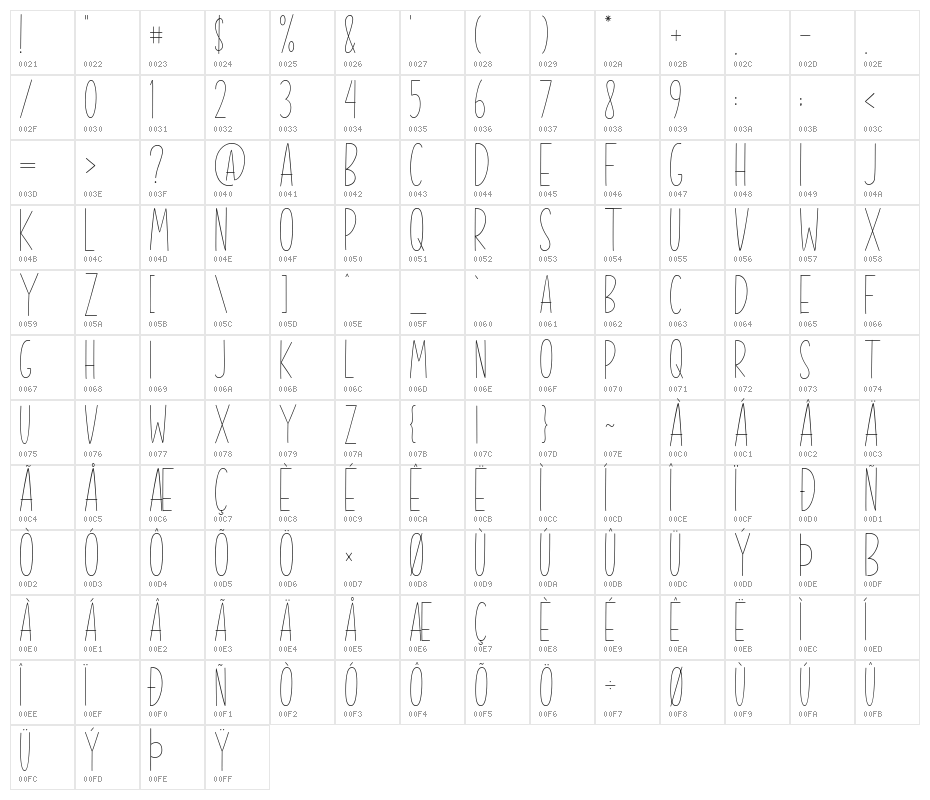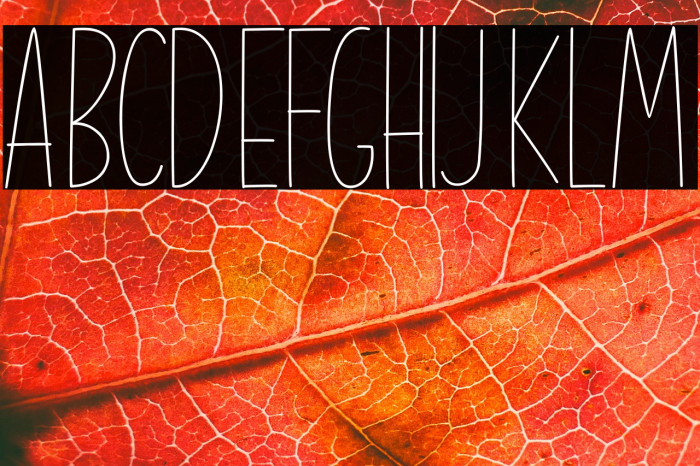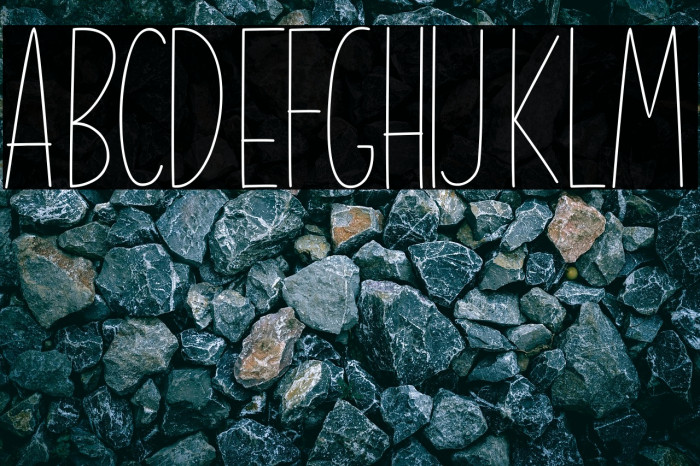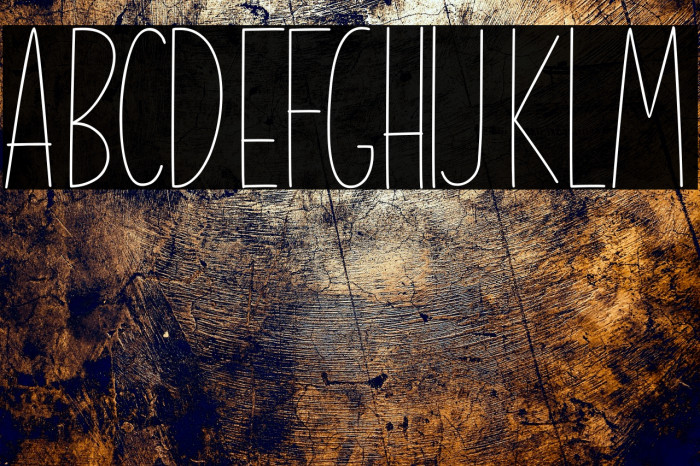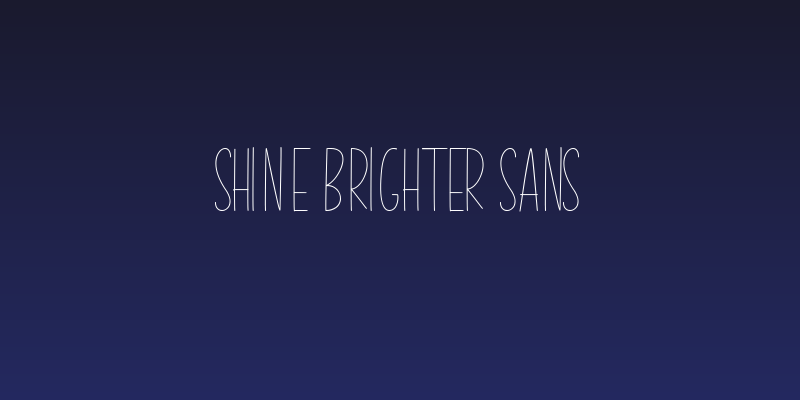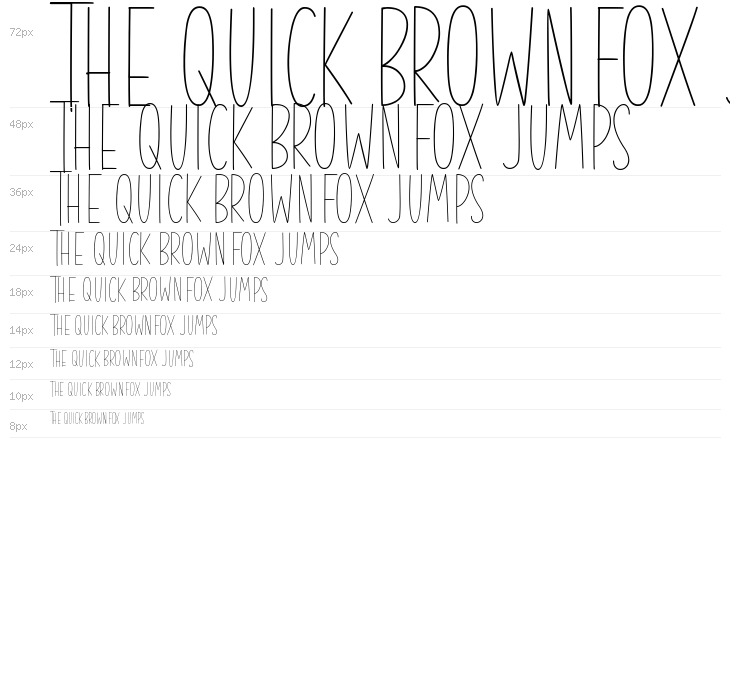
Shine Brighter Sans Font
Shine Brighter Sans Description
This font features an ultra-thin, elongated design with a modern and minimalist aesthetic. The characters are tall and narrow, creating a sleek and sophisticated appearance. The strokes are consistent in width, providing a uniform look across all letters and numbers. The font maintains a clean and airy feel, making it suitable for contemporary designs. Its unique style is characterized by a high level of elegance and simplicity, with a focus on verticality and lightness. The special characters are seamlessly integrated, maintaining the overall aesthetic of the font.
| Proposed Projects | Ideal for fashion magazines, luxury branding, minimalist posters, and modern web design. |